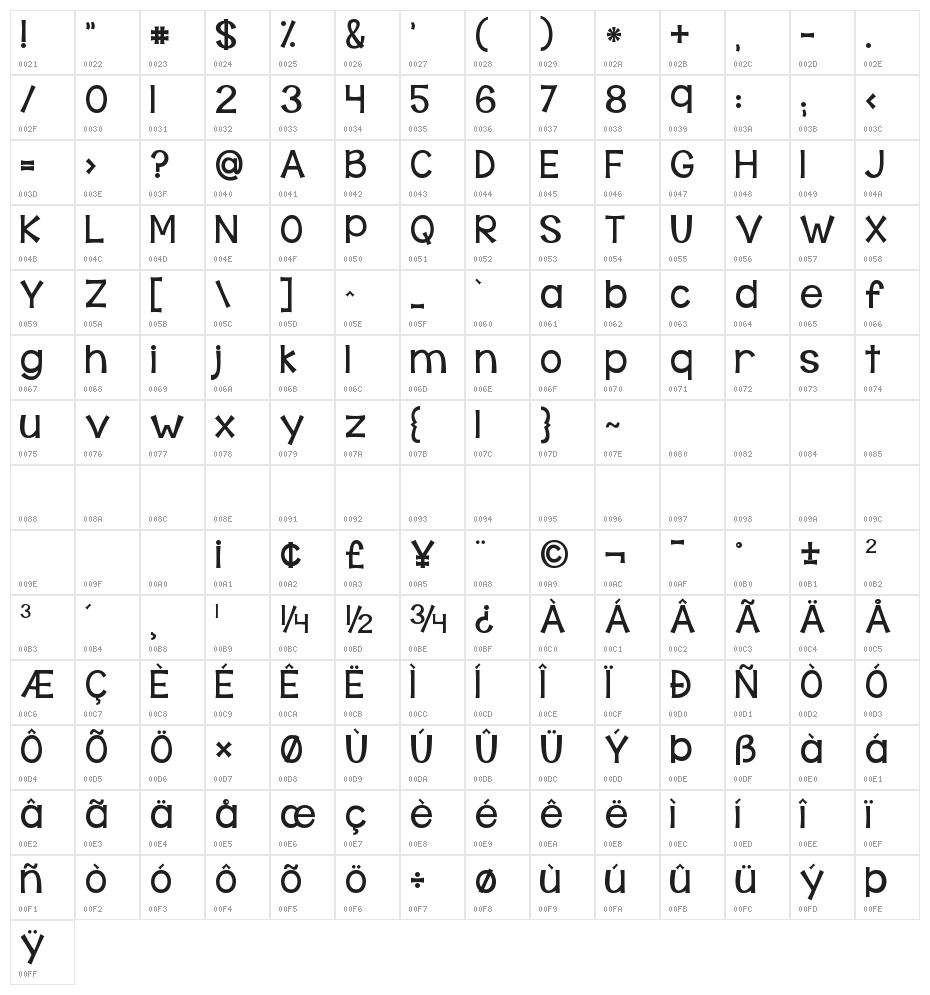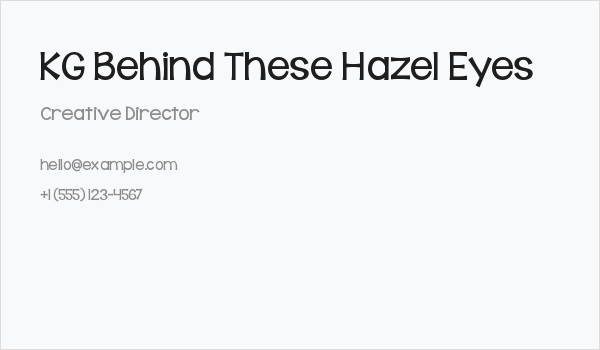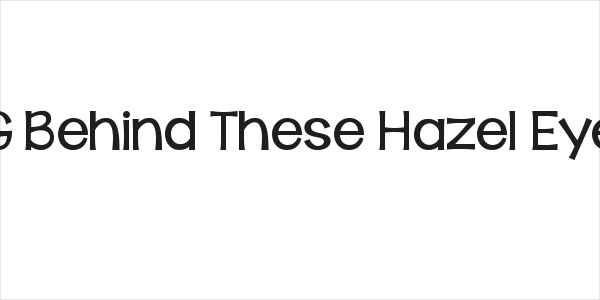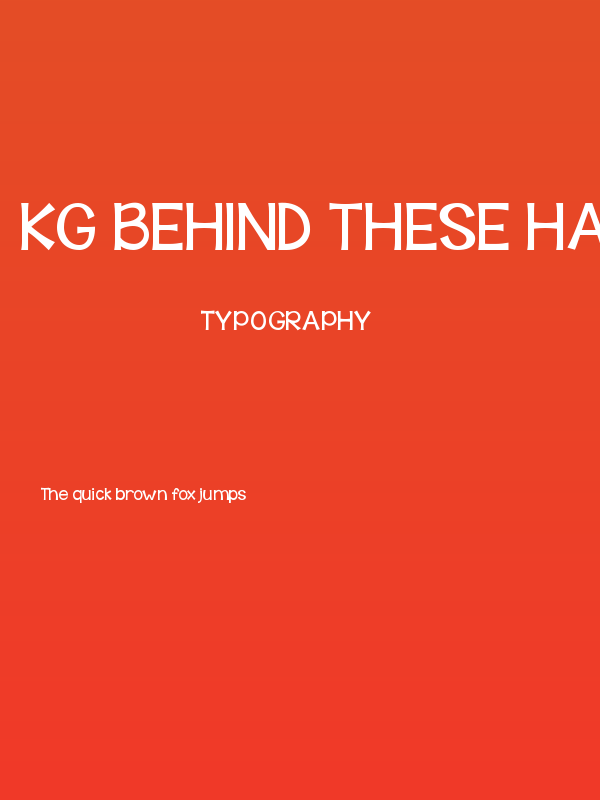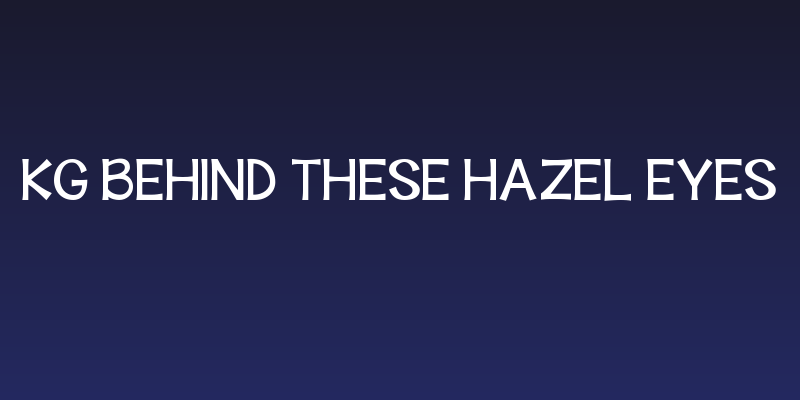
KG Behind These Hazel Eyes Font
KG Behind These Hazel Eyes Description
This font features a playful and whimsical design, characterized by its rounded edges and slightly irregular shapes. The uppercase letters are bold and prominent, while the lowercase letters maintain a consistent flow with a touch of quirkiness. The numerals are well-balanced, complementing the overall style. Special characters are creatively designed, adding to the font's unique personality. The font's charm lies in its ability to convey a sense of fun and creativity, making it suitable for projects that require a lighthearted and approachable aesthetic.
| Proposed Projects | Ideal for children's books, playful branding, greeting cards, and creative posters. |